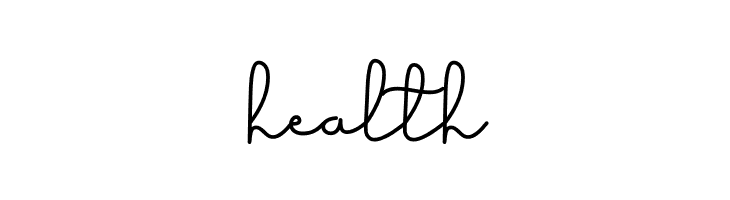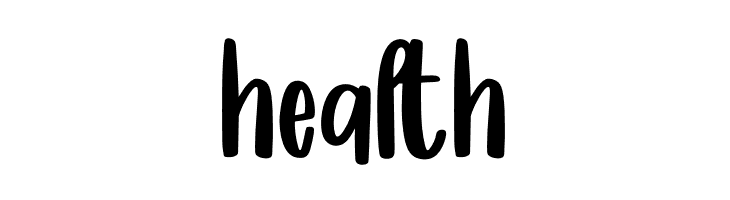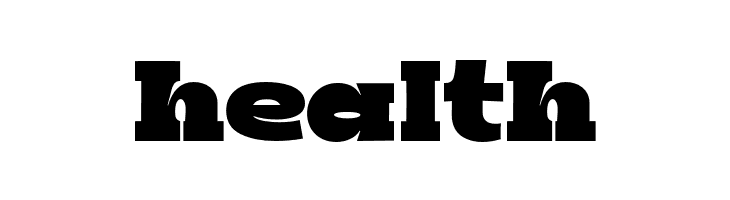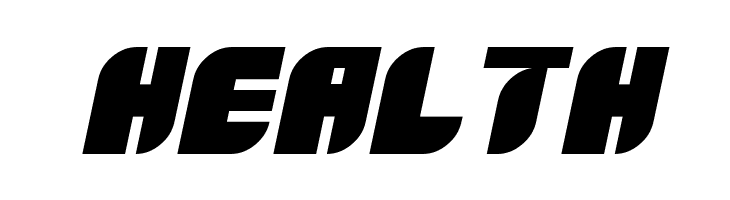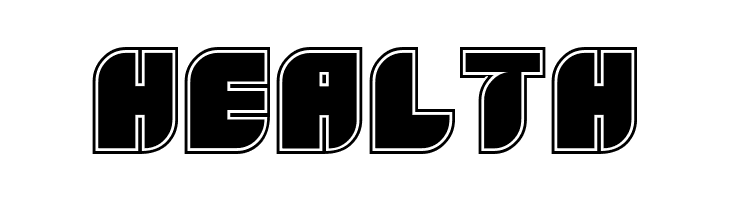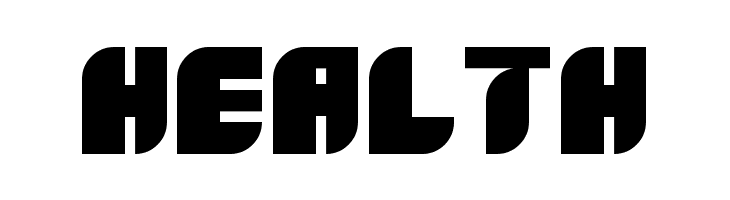
A bold, playful handwritten font with thick strokes and rounded edges.
A bold, geometric font with strong, block-like characters.
A playful and whimsical script font with flowing, interconnected letters.
A bold, geometric outline font with a modern and impactful style.
Playful handwritten font with rounded edges.
A bold, expressive script font with flowing, dynamic strokes.
A bold, expressive script font with elegant, flowing strokes.
A bold, semi-condensed slab serif font with high contrast and strong presence.
A bold, playful font with rounded edges and a cartoonish style.